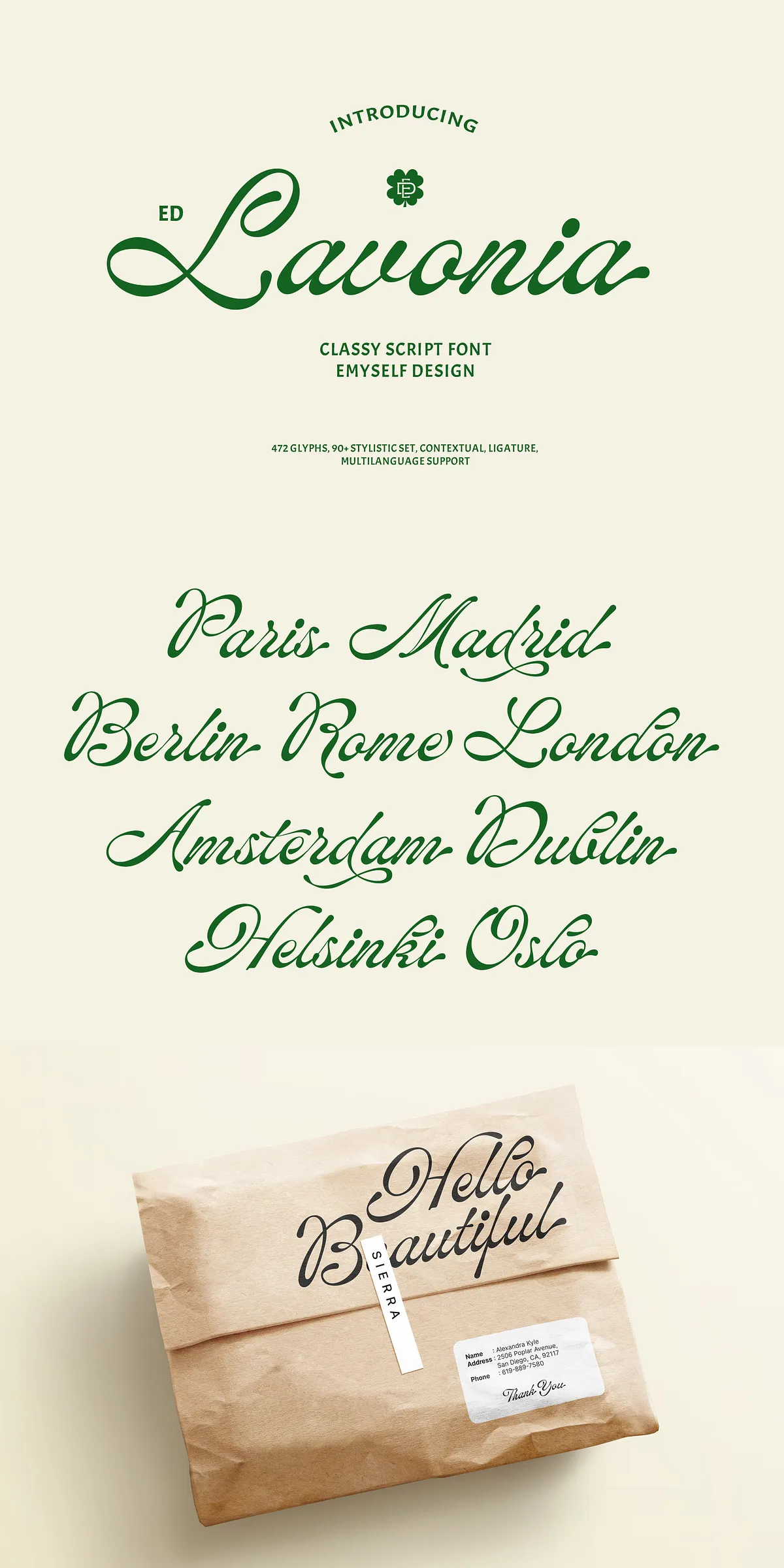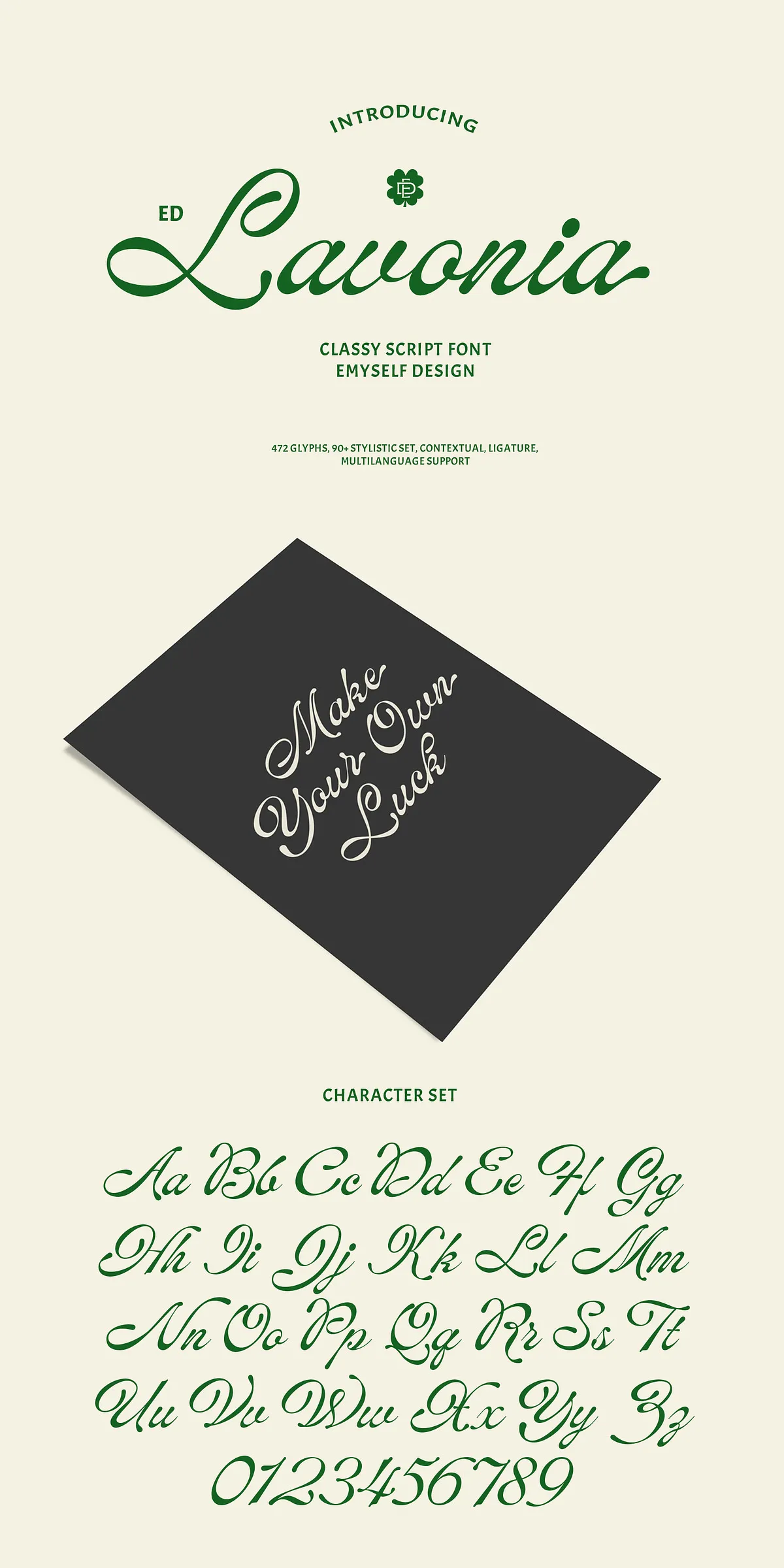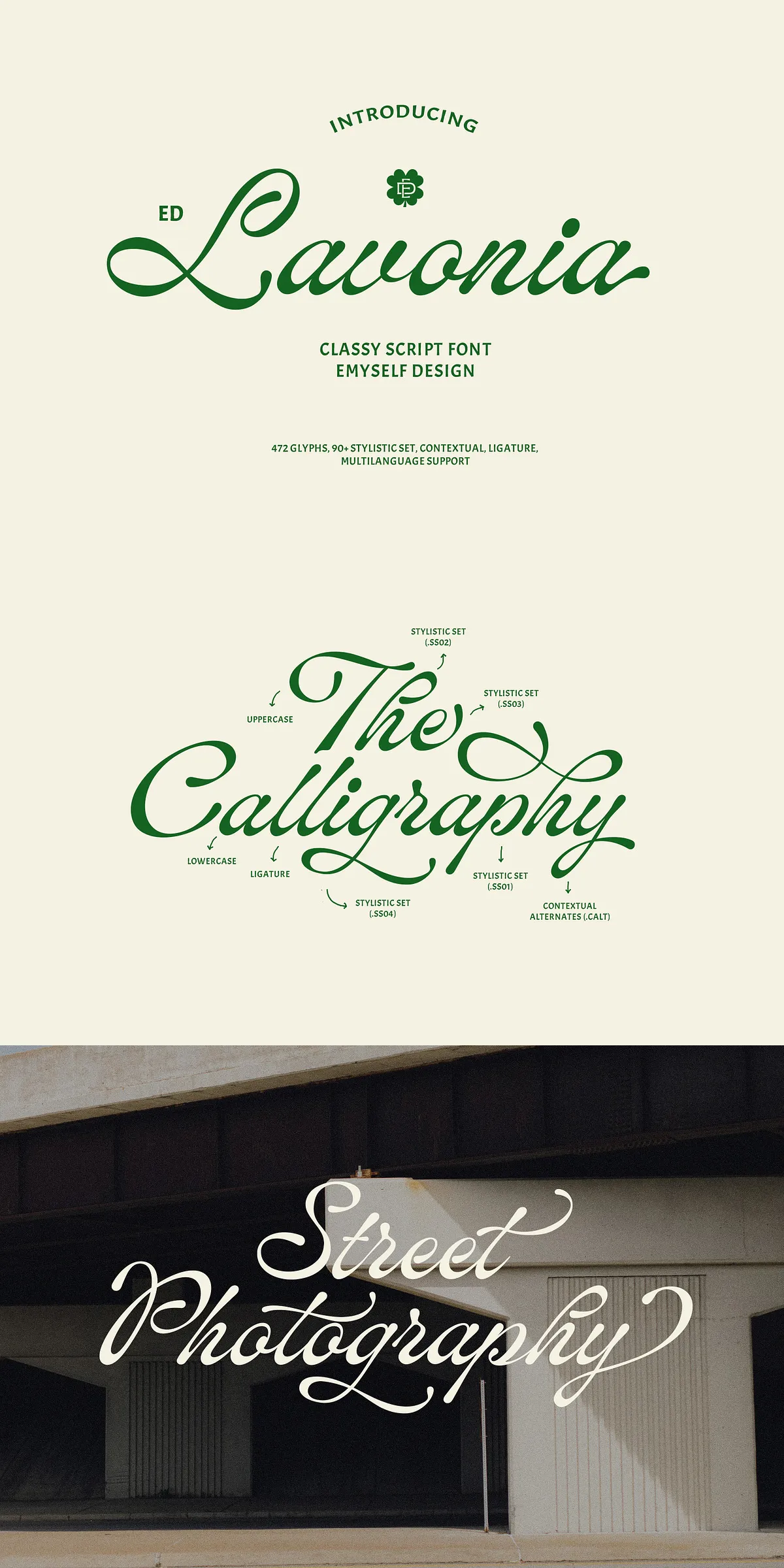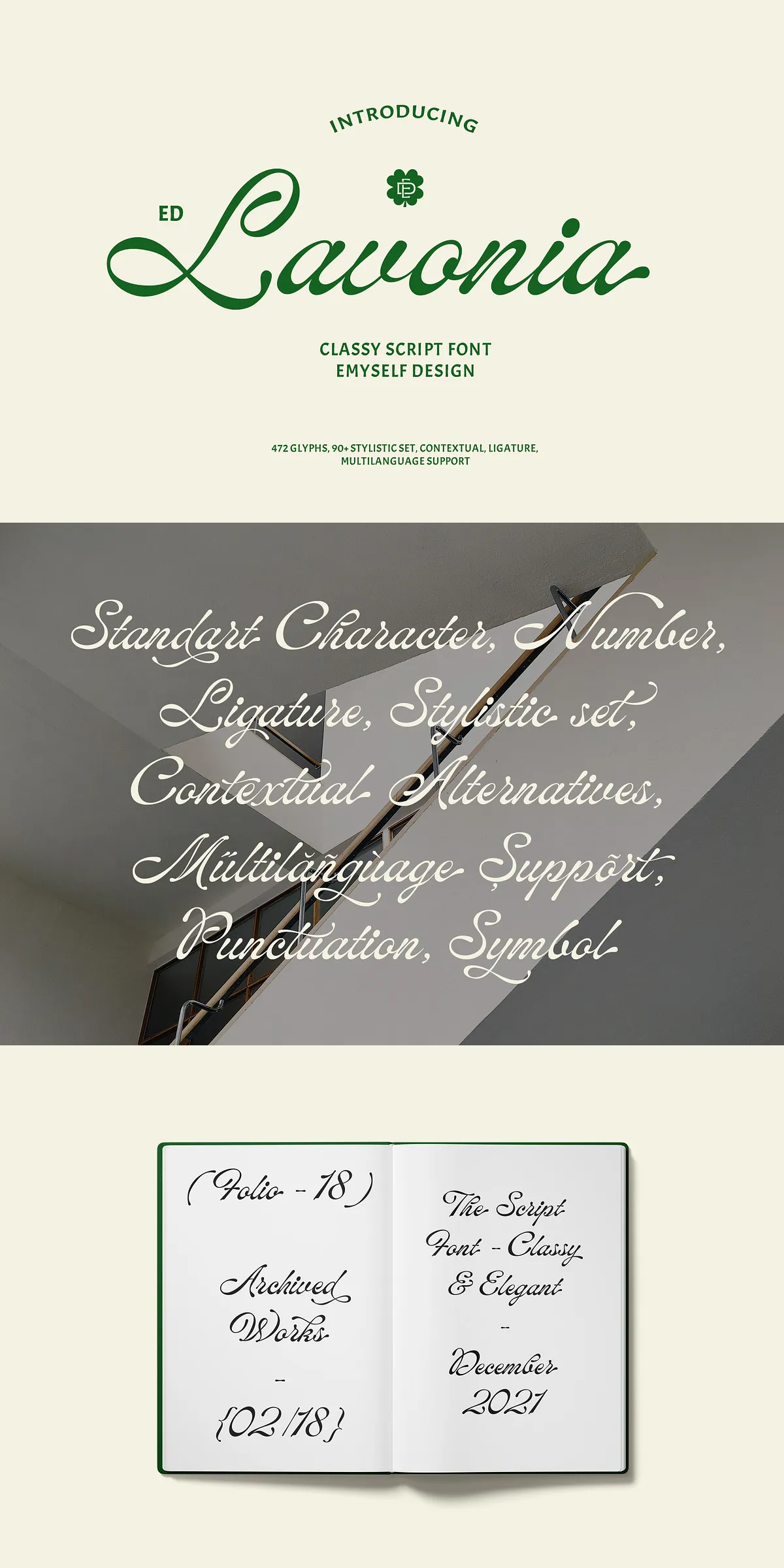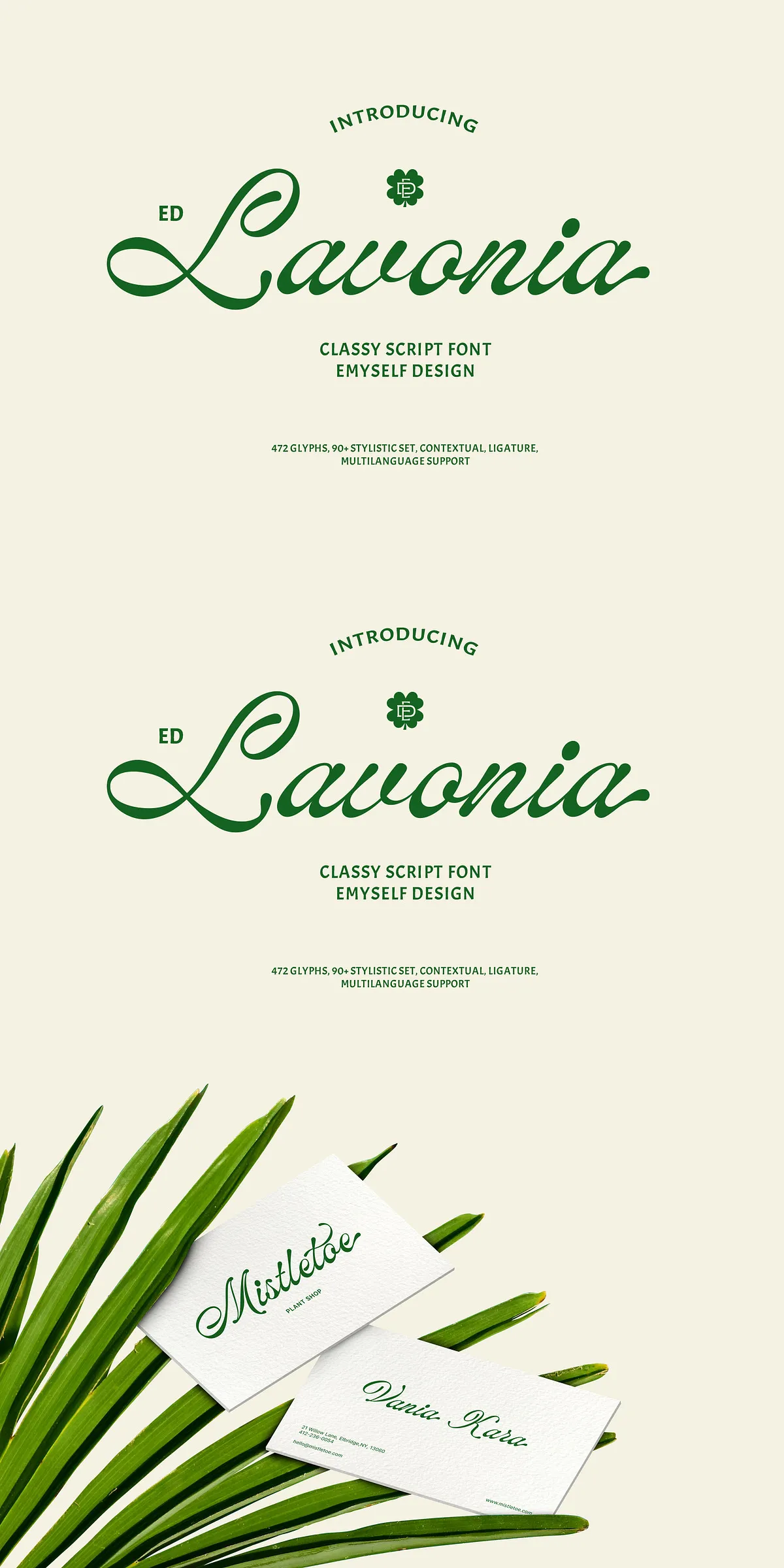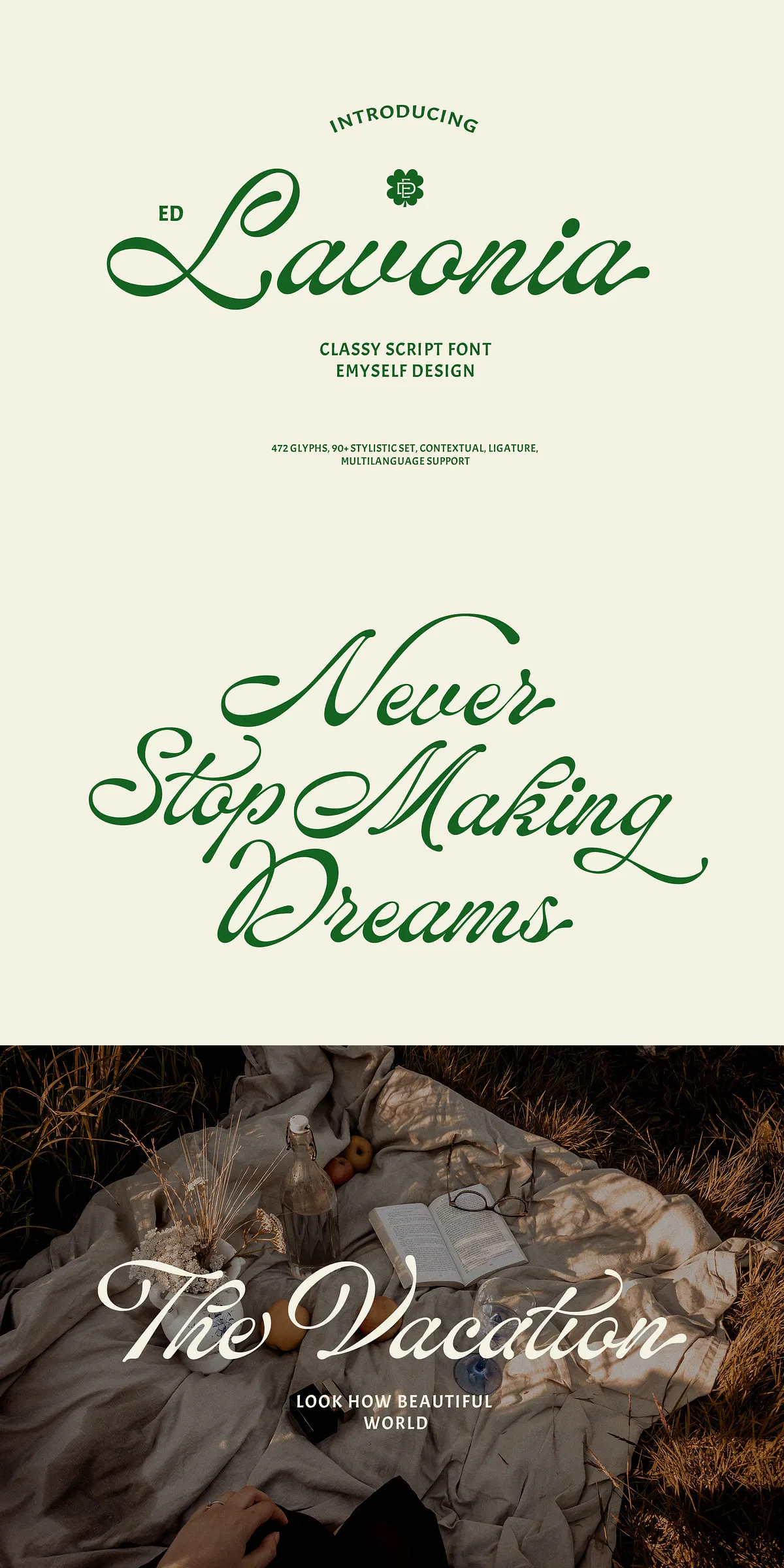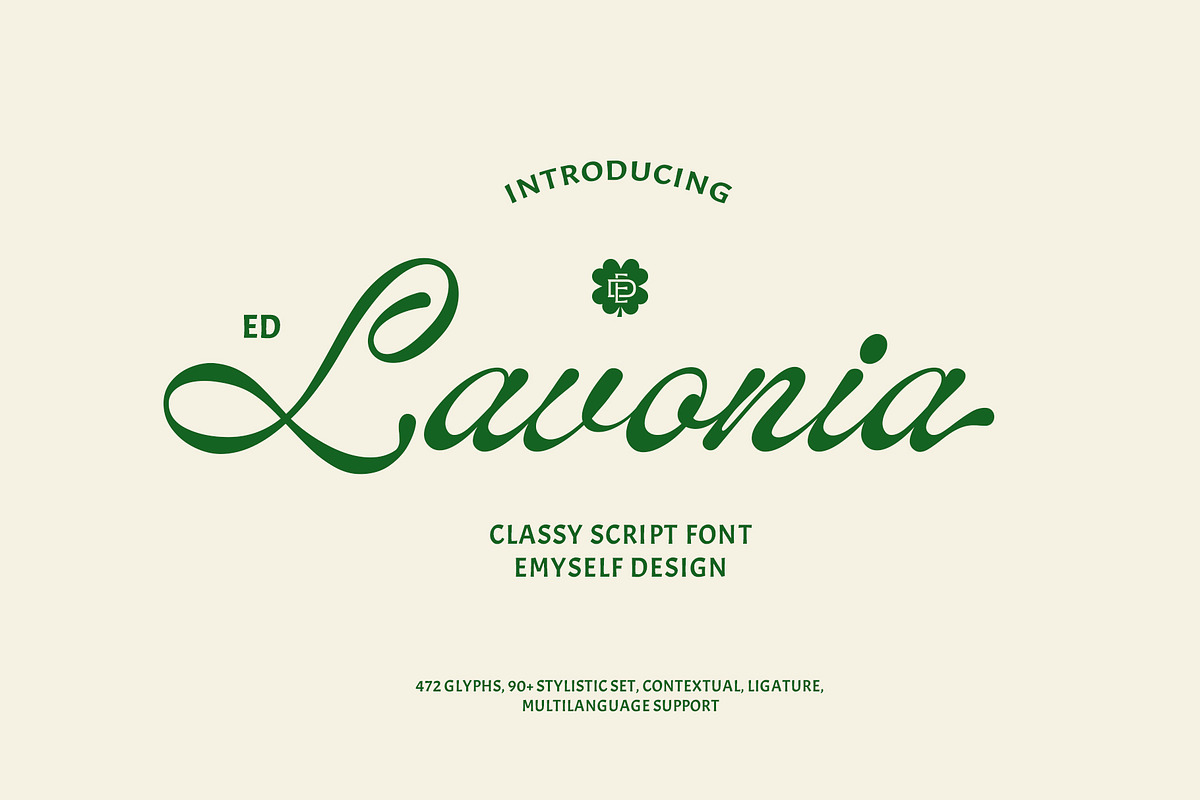
Unlock the power of sophisticated hand-lettered beauty with Lavonia Script Font — a modern classic script inspired by the timeless grace of traditional book handwriting. Designed for creators who demand both refinement and personality, Lavonia transforms everyday text into a masterpiece of visual storytelling. Whether you’re crafting luxury branding, elegant invitations, or editorial layouts, this font delivers expressive flow, seamless ligatures, and an authentic handwritten feel that stands out in any context.
Why Lavonia Script Stands Out: Features That Inspire Brilliance
More than just a script font, Lavonia Script is a comprehensive typographic tool built for real-world creative challenges. Its rich set of advanced features ensures your work is not only beautiful but professional, flexible, and future-proof. Here’s what makes it exceptional:
- 90+ Stylistic Sets – Easily access diverse alternate forms for letters, giving you endless variation to keep your design fresh and unique.
- Contextual Alternates – Automatically adjust letterforms based on surrounding characters, creating a natural, flowing script that mimics real handwriting.
- Advanced Ligatures – Experience seamless connections between letters with handcrafted ligatures that eliminate awkward gaps and enhance legibility.
- Multi-Language Support – Fully equipped with extensive language coverage, including Latin, Western European, and extended character sets, making it ideal for international projects.
- Comprehensive Glyph Count: 472 – Includes uppercase and lowercase letters, punctuation, marks, symbols, and special characters for total creative freedom.
Whether you’re designing a high-end magazine cover, a corporate letterhead, or a social media banner, Lavonia adapts seamlessly to your needs with crisp, scalable results.
Perfect For Projects That Demand Sophistication and Soul
Lavonia Script isn’t just a font — it’s a creative partner. Use it to add depth, charm, and authenticity to any project that requires elegance and character:
- Logo & Brand Identity Design – Create memorable, handcrafted brand marks that feel personal and premium.
- Wedding Invitations and Stationery – Add timeless romance and grace to every detail of your special day.
- Product Packaging and Labels – Elevate consumer brands with a premium, artisanal aesthetic.
- Book and Magazine Typography – Ideal for chapter headings, quotes, and editorial sections where voice matters.
- Web Typography and UI Design – Use with care for hero sections, testimonials, or signature elements to break monotony.
- Apparel & Merchandise Design – Add expressive flair to t-shirts, tote bags, and accessories with stylish, readable script.
Design with Confidence: Professional-Grade Quality, Effortless Use
No more settling for flat, generic scripts. Lavonia Script is optimized for readability and aesthetics, even at small sizes. Its carefully crafted spacing, swashes, and stroke weight variations ensure your message remains legible while feeling luxurious. With full OpenType support, all advanced features activate with a single click — no complex coding or manual replacements needed.
Transform your next creative challenge into a stunning visual experience. Let Lavonia Script guide your hand, elevate your vision, and bring your ideas to life with refined elegance.